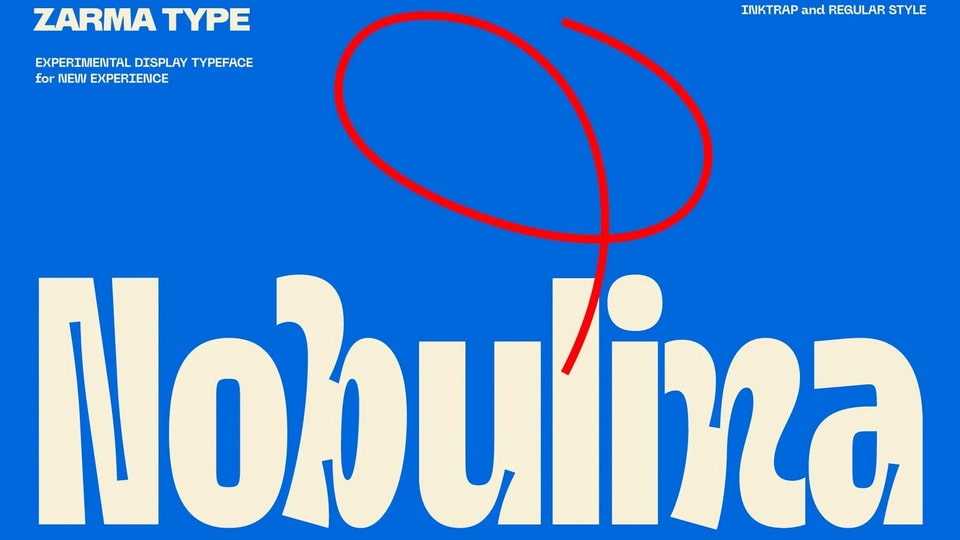
Download Nobulina font, more than just a typeface—it’s a collision of contrast and control. With condensed sans letterforms pressed tightly beside inktrap-laced strokes and script-like alternates